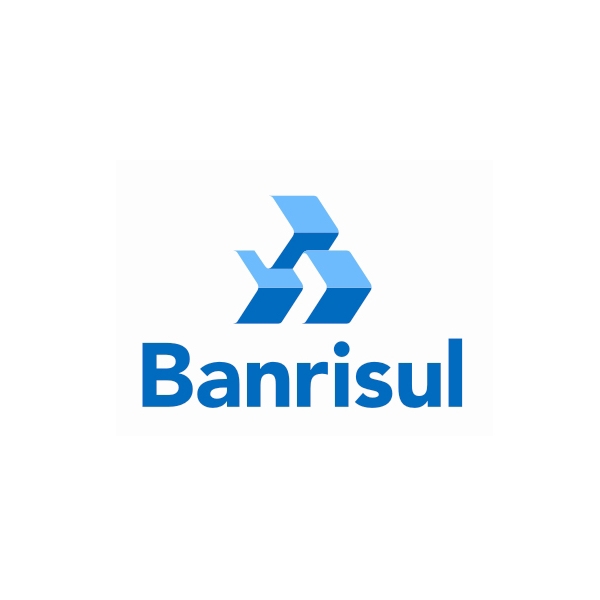
Banrisul Font
It is likely that the Banrisul logo uses Avenir Black as its font, which was created by Adrian Frutiger. Avenir is a geometric sans serif font that draws inspiration from two other similar fonts, Erbar and Futura. Further information about this font can be viewed here.